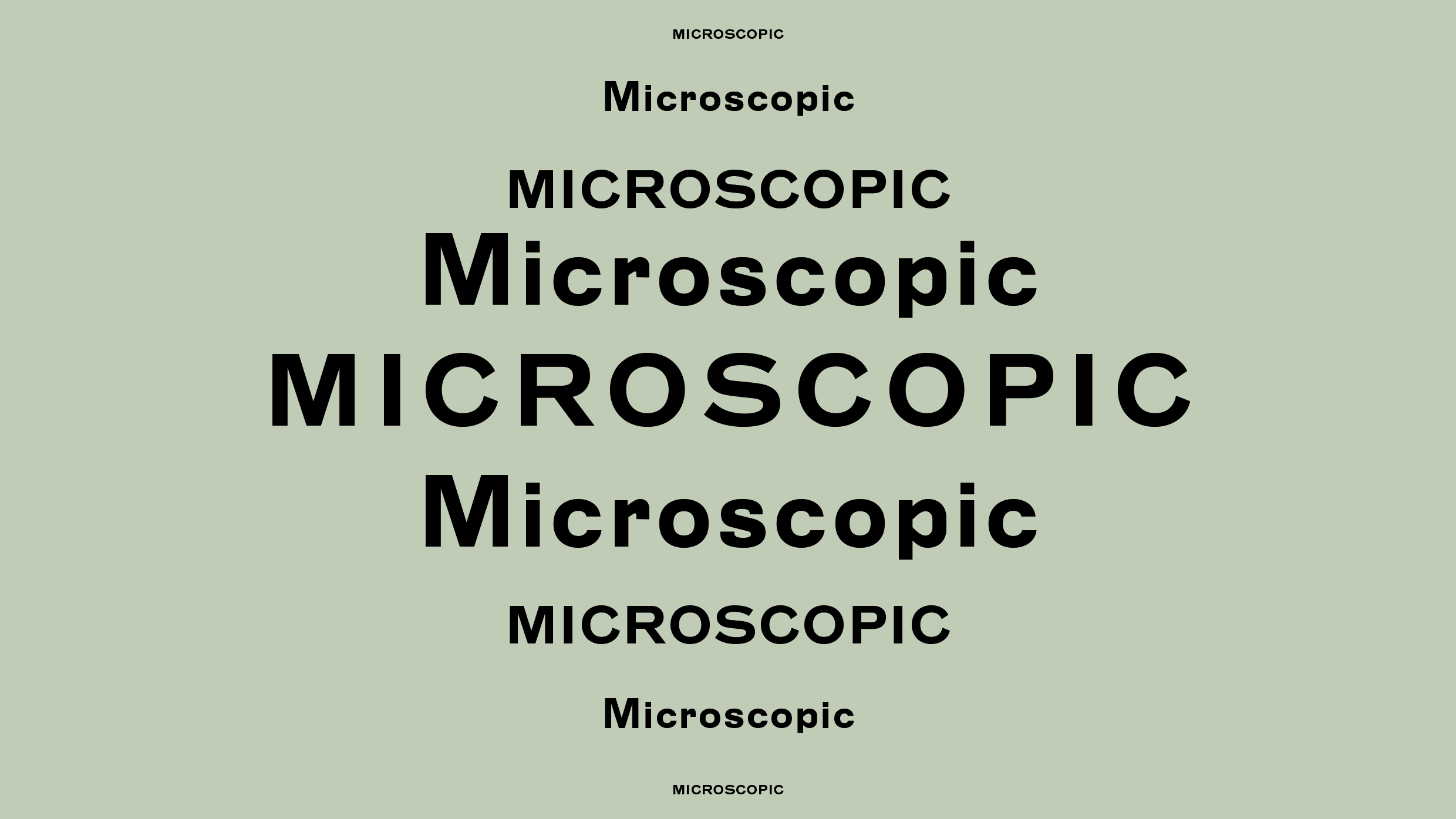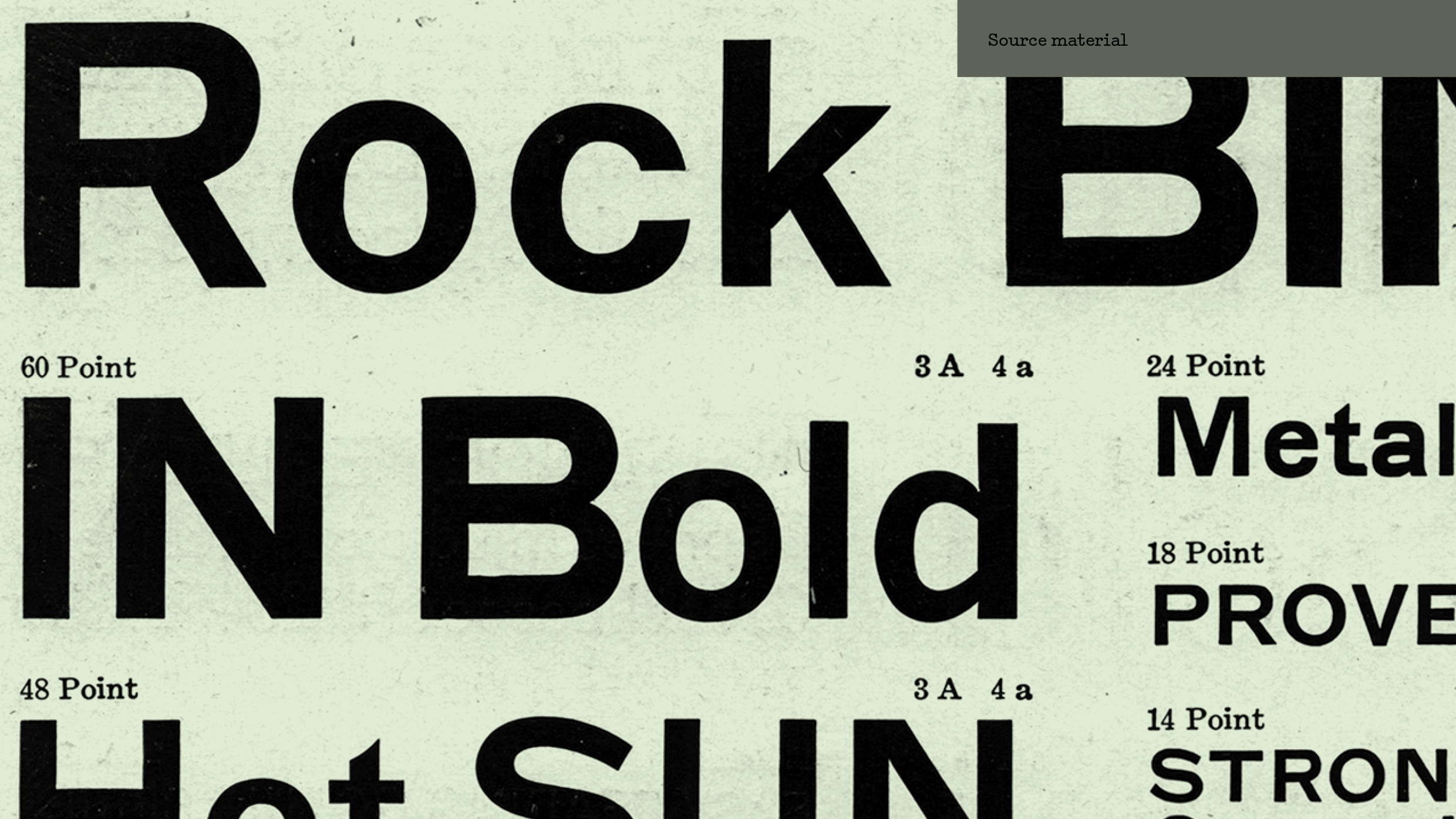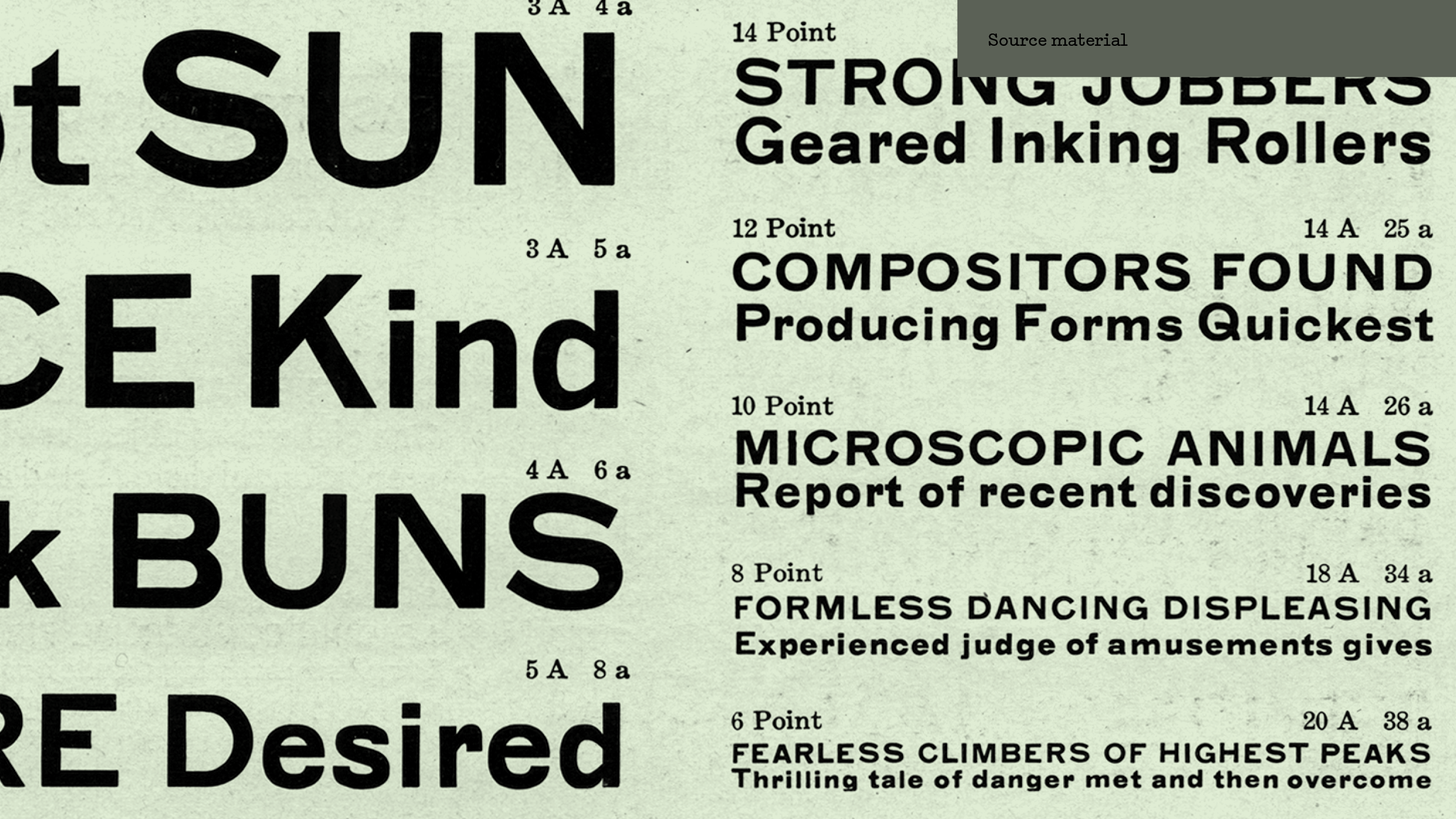
Microscopic is a font inspired by GOTHIC NO. 3, a typeface featured in the Barnhart Brothers & Spindler Typeface specimen, published in the US c. 1908. Late in our design process, we discovered lighter weights issued by other foundries (Lanston Monotype and Keystone Type Foundry in Philadelphia), which convinced us to expand our original single-style font into a small family consisting of 5 Roman weights. Its distinctive appearance and clarity in small point sizes suggested the name Microscopic. The source typeface is an inspired amalgamation of styles, mixing square and soft shapes. The almost ‘mechanically’ constructed lowercase has intriguing and highly original ‘pinched’ bowls attached to the stems of the b, d, g, p, and q, among other fine details. The uppercase letters fit the somewhat traditional Grotesque design pattern. The typeface is a duplexed design which means that all of the fonts use the exact same amount of space no matter which font weight you select.
| Font name: | Microscopic |
| Font category: | Sans/Grotesque |
| Styles: | Light Regular Medium SemiBold Bold ExtraBold Black Heavy |
| Manufacturer: | A2-TYPE |
| Designer: | Henrik Kubel |